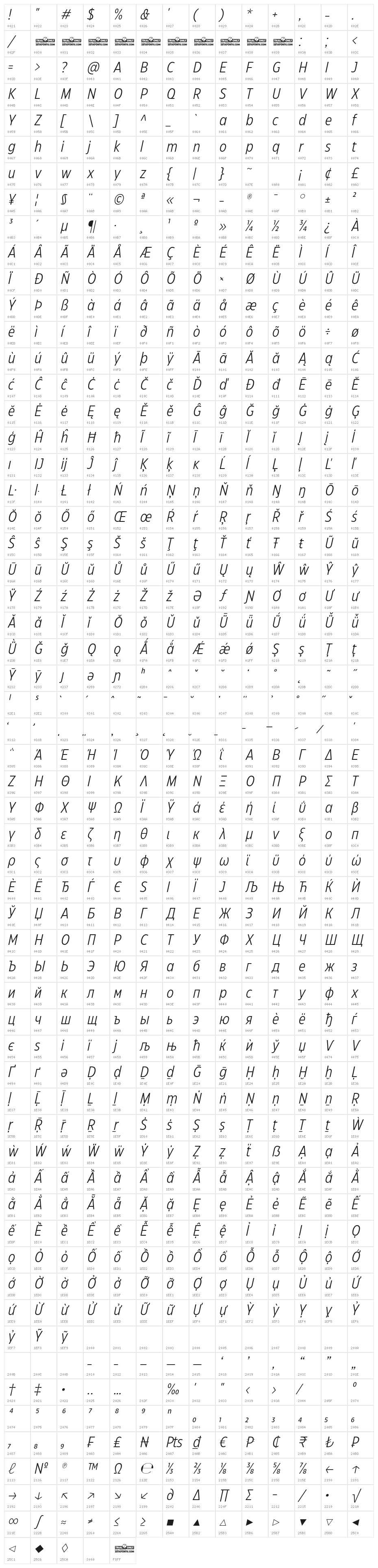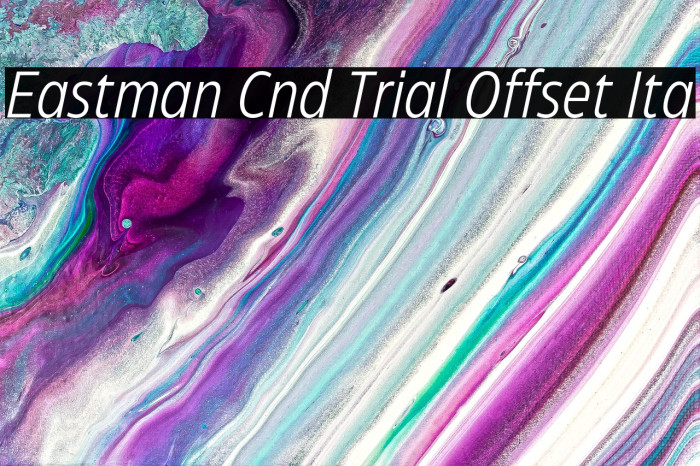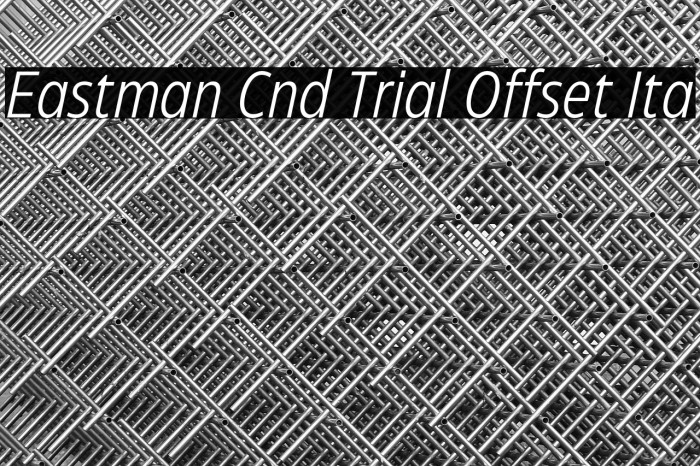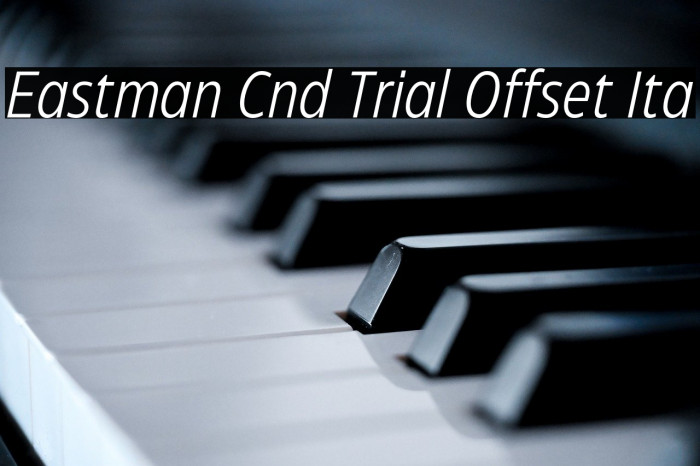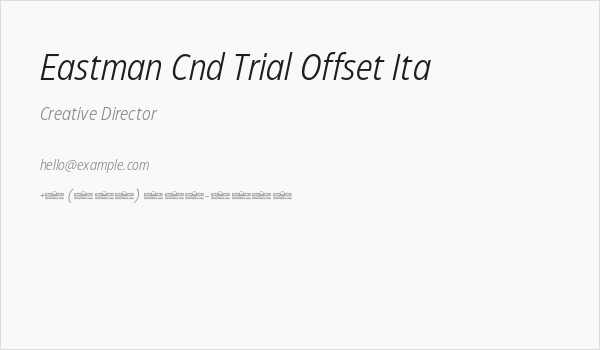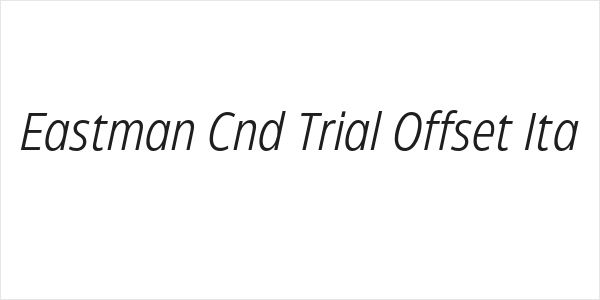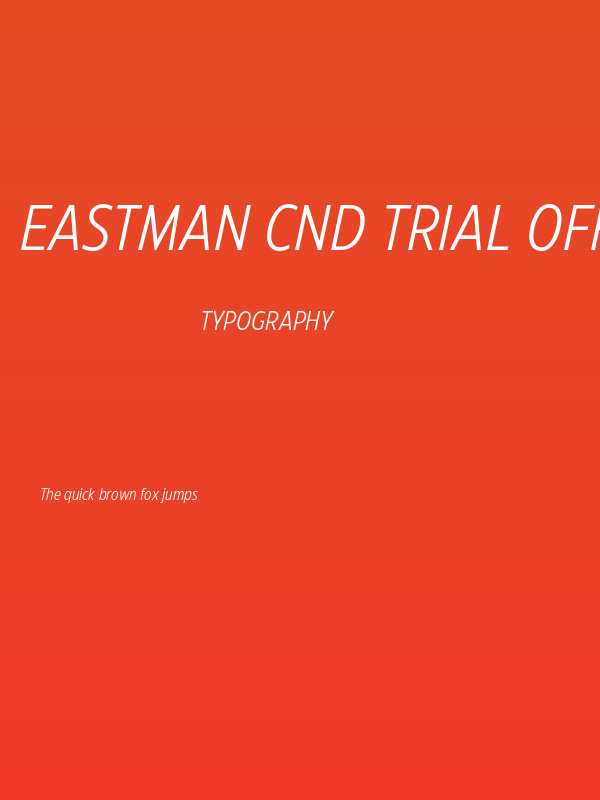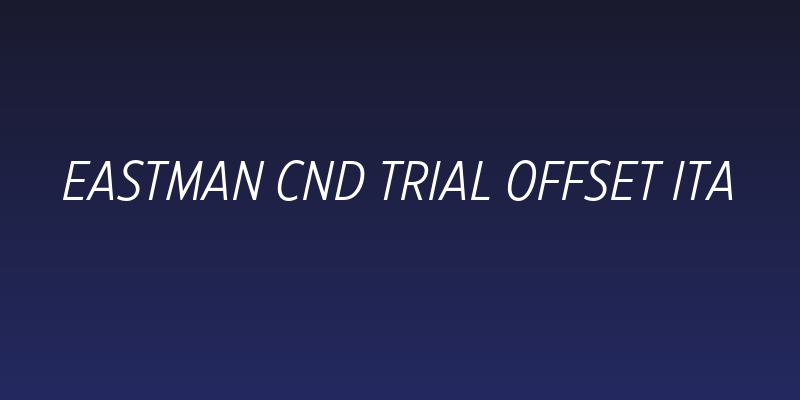
Eastman Cnd Trial Offset Ita Font
Eastman Cnd Trial Offset Ita Description
This font features a clean and modern design with a slightly condensed structure. The italic style adds a dynamic and forward-leaning appearance, enhancing its contemporary feel. The characters are well-balanced with a consistent stroke width, providing a uniform look across both uppercase and lowercase letters. The numerals and special characters maintain the same sleek aesthetic, making it versatile for various applications. Its simplicity and elegance make it suitable for professional and creative projects alike.
| Proposed Projects | Ideal for branding, editorial design, advertising, and digital interfaces. |